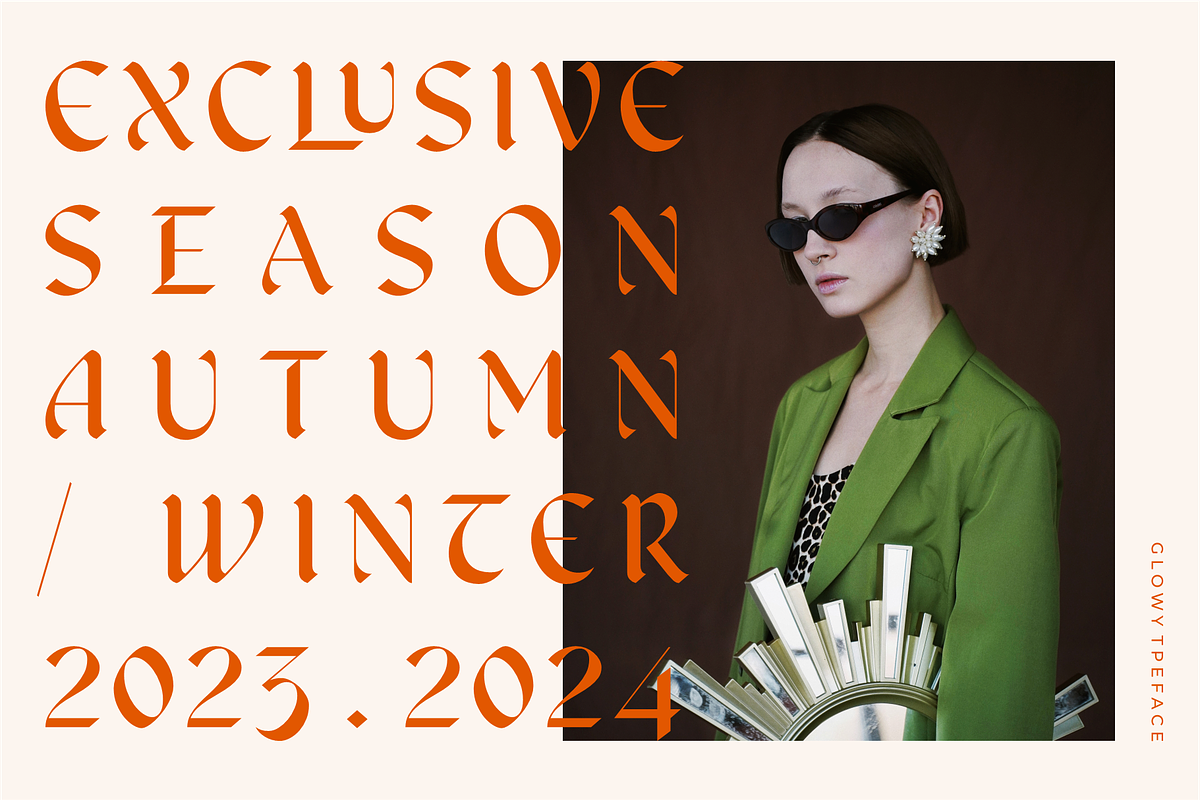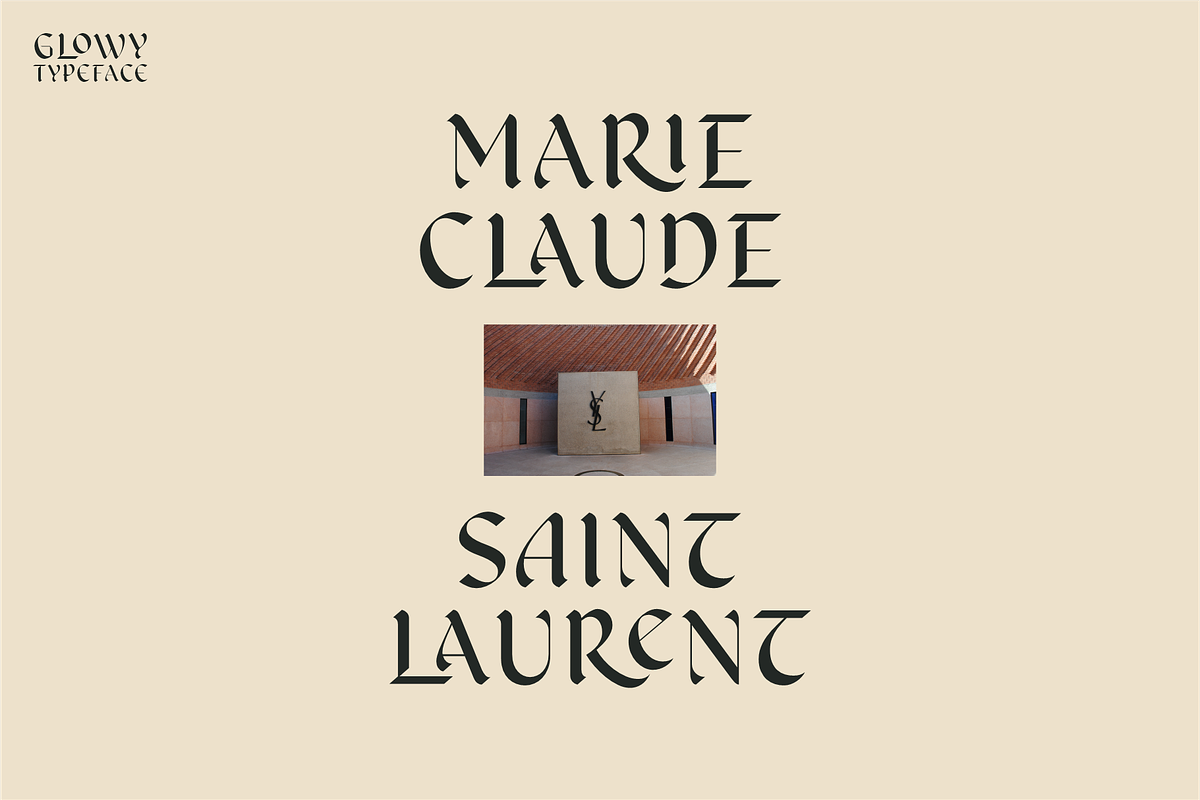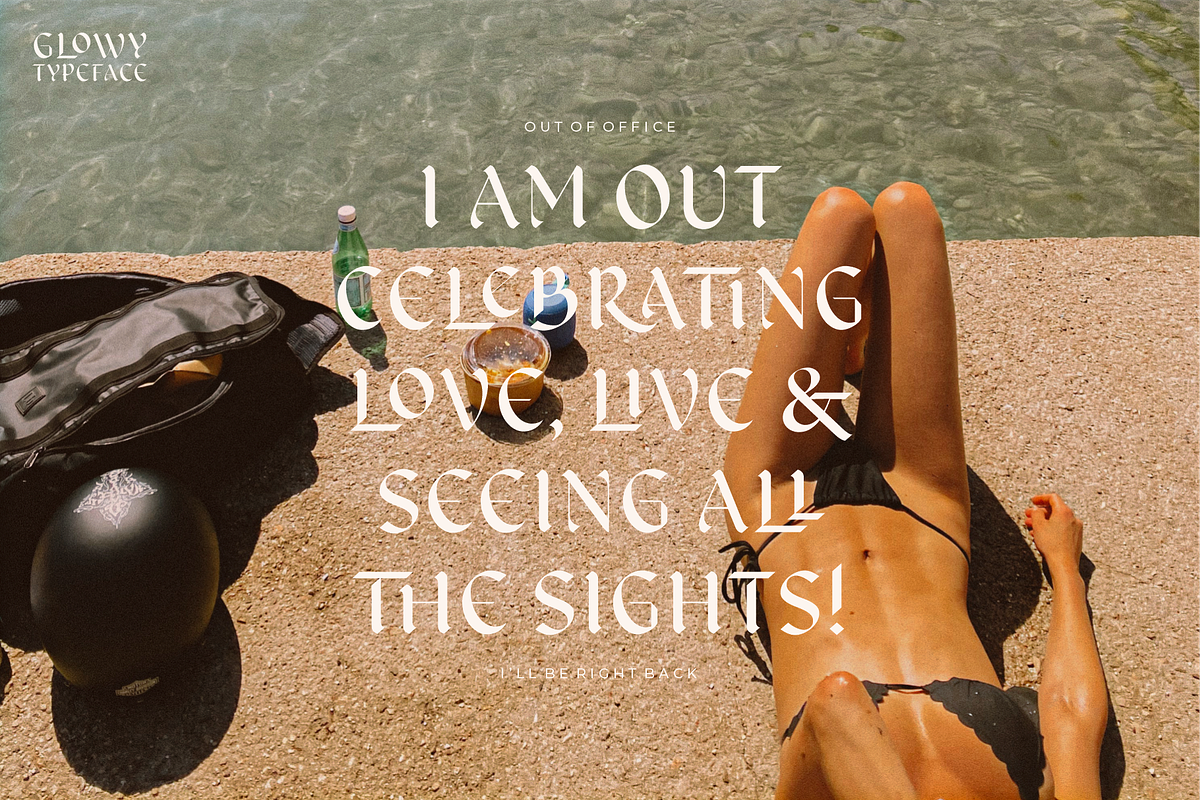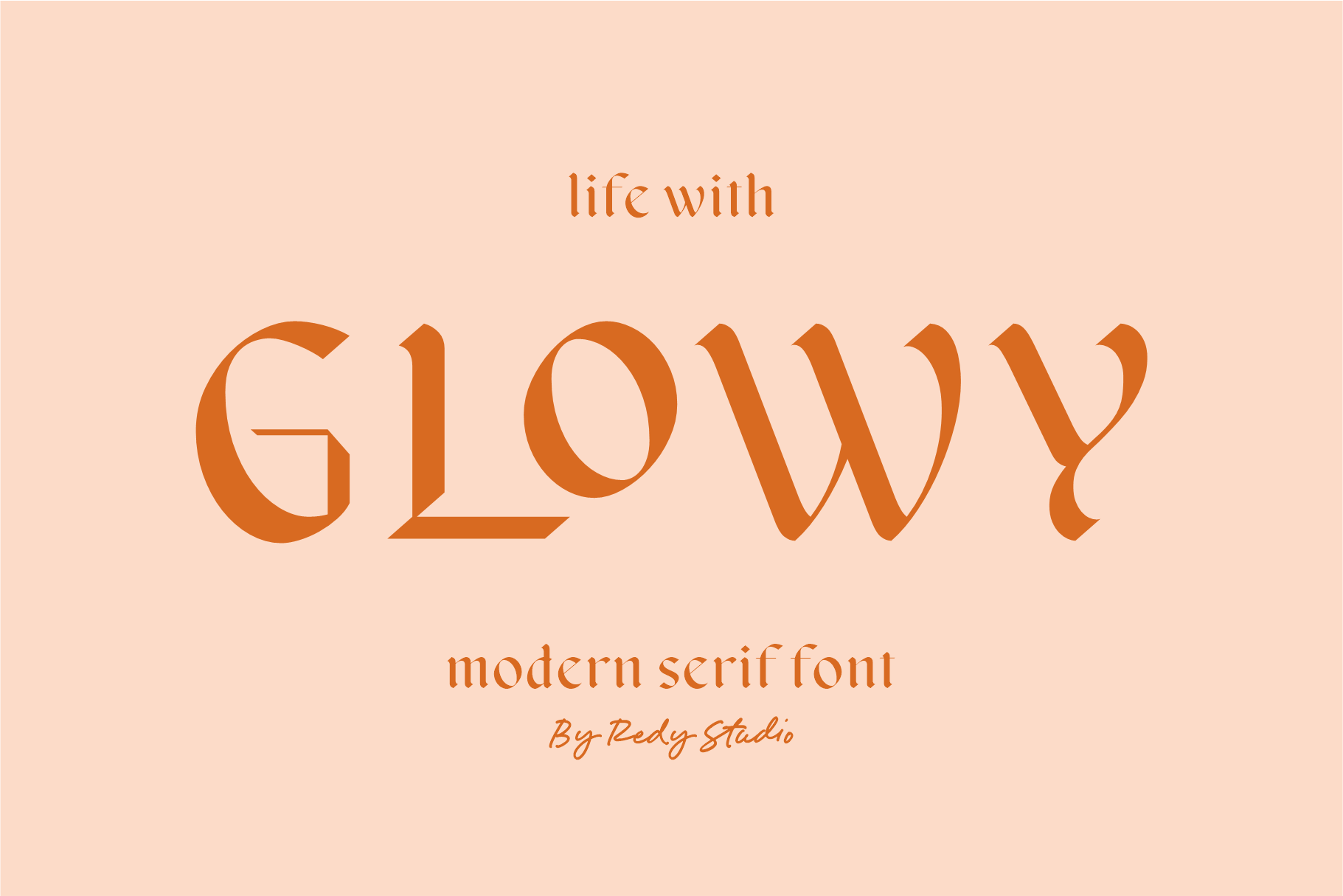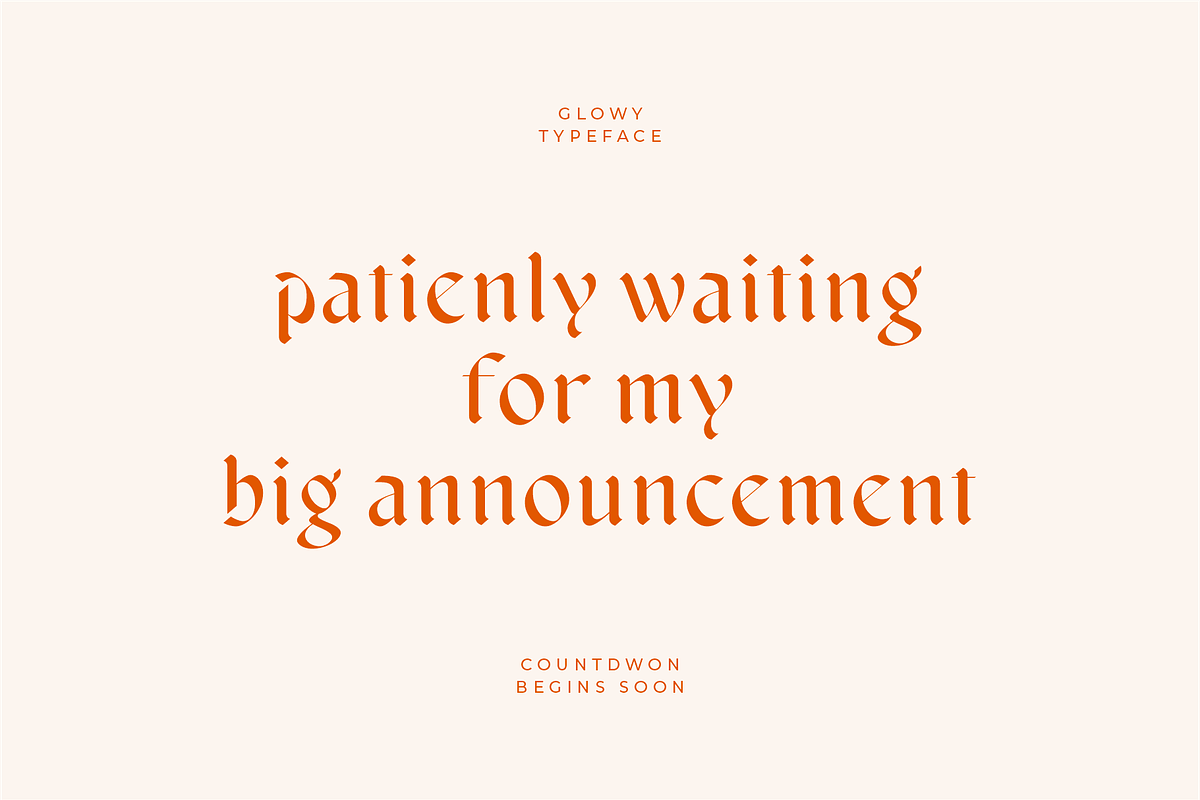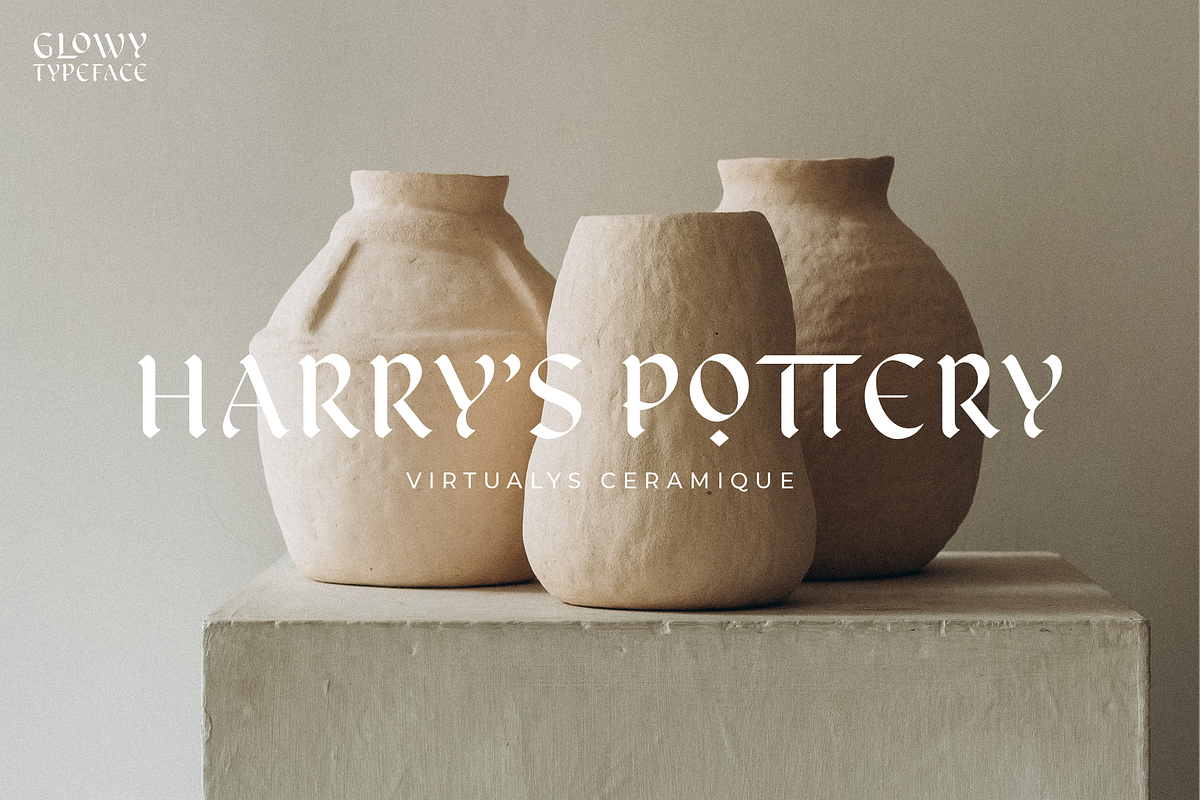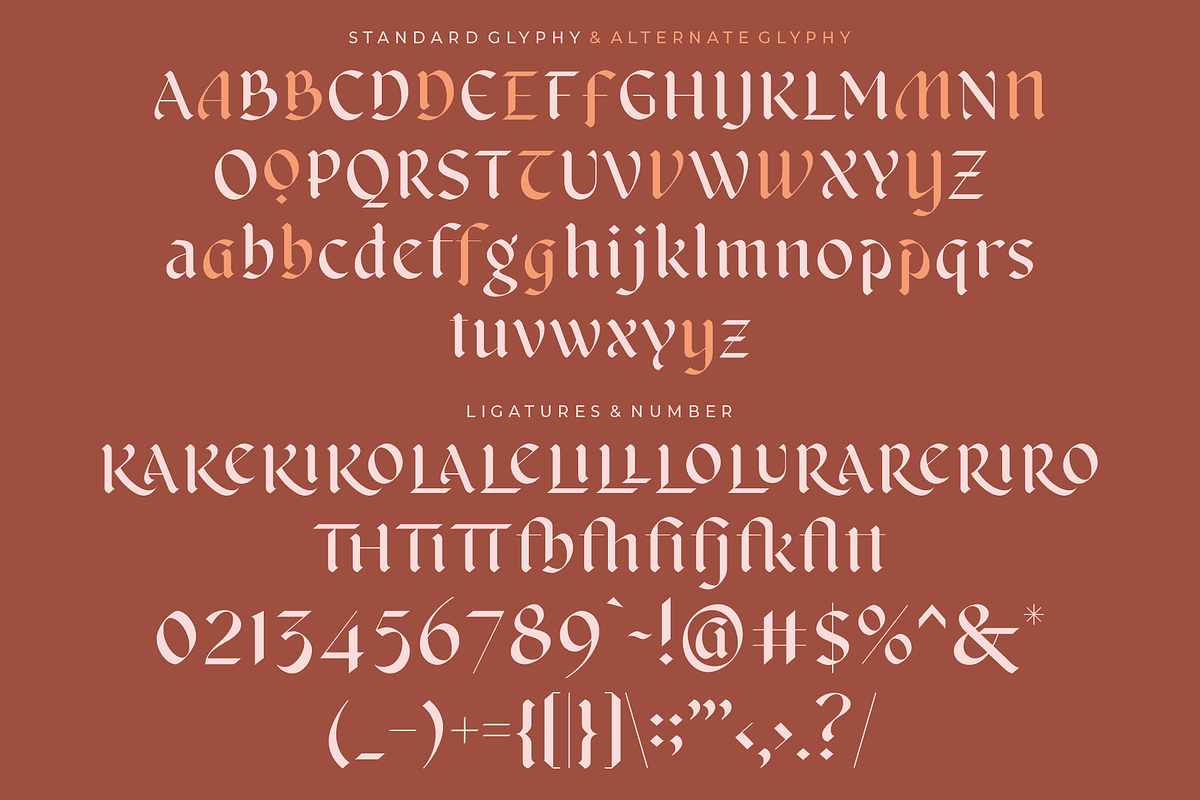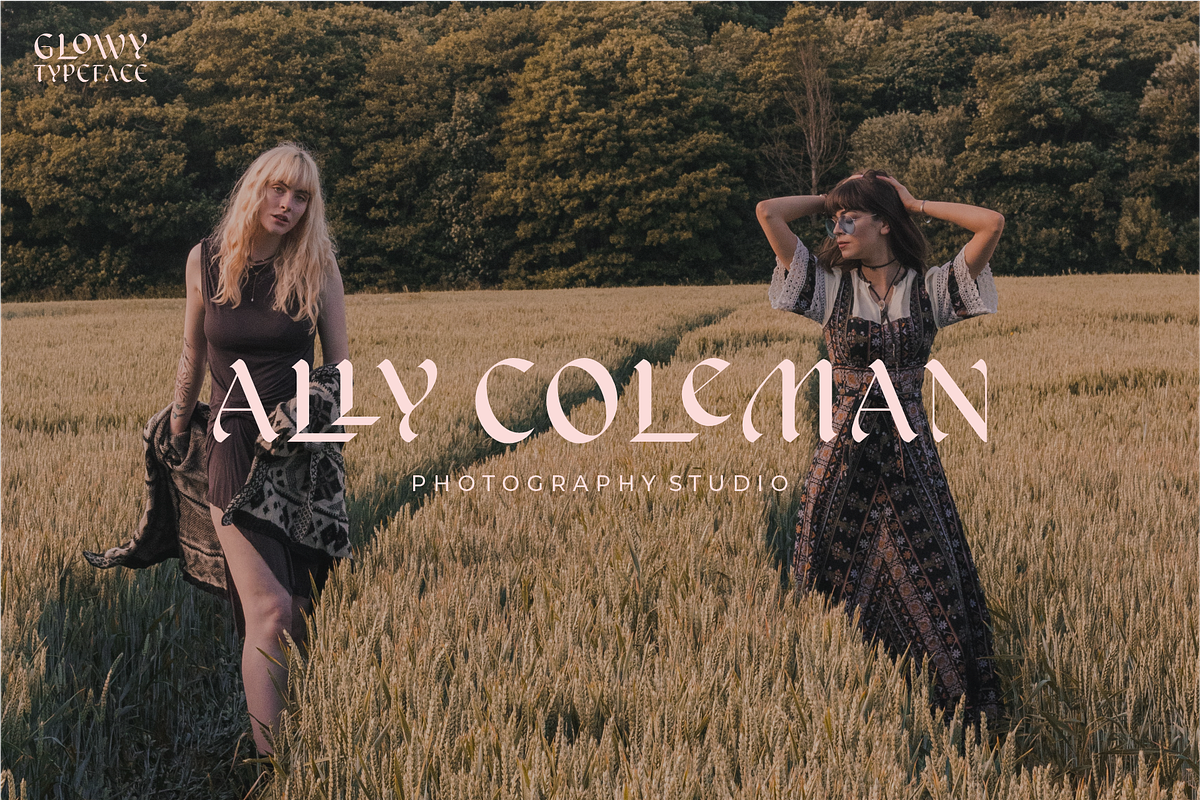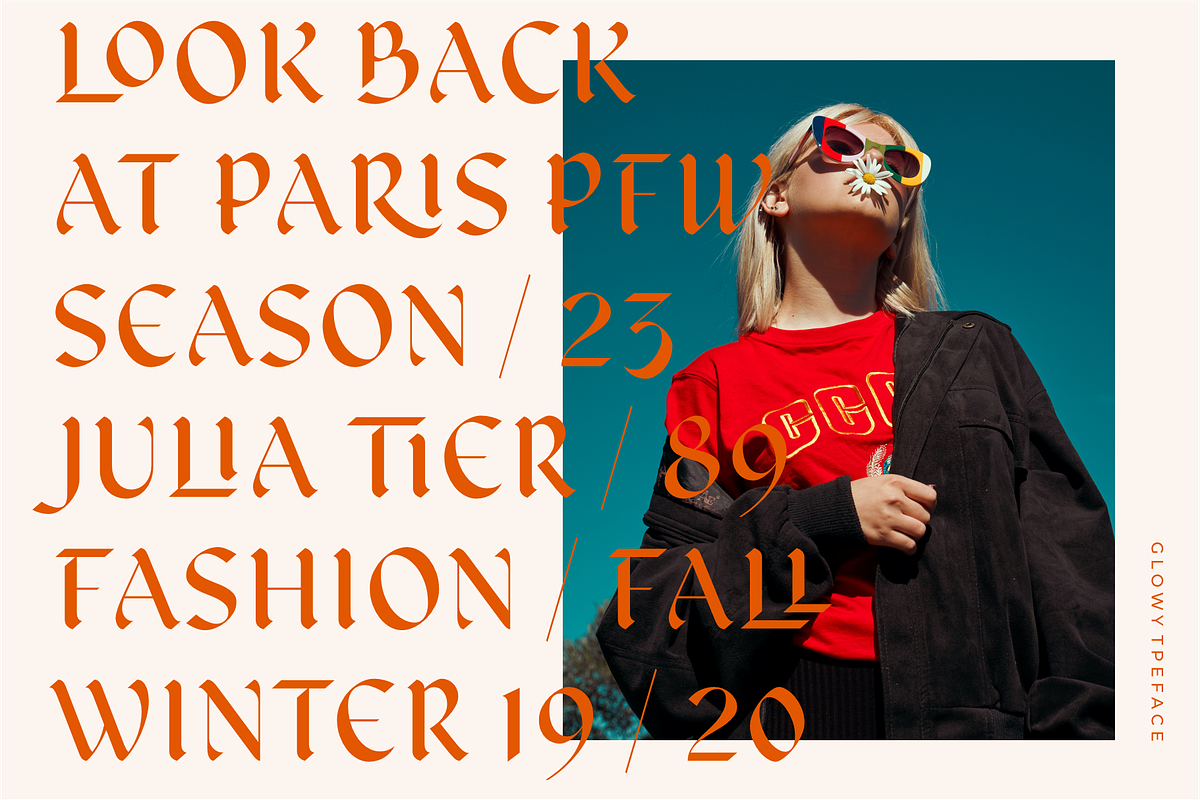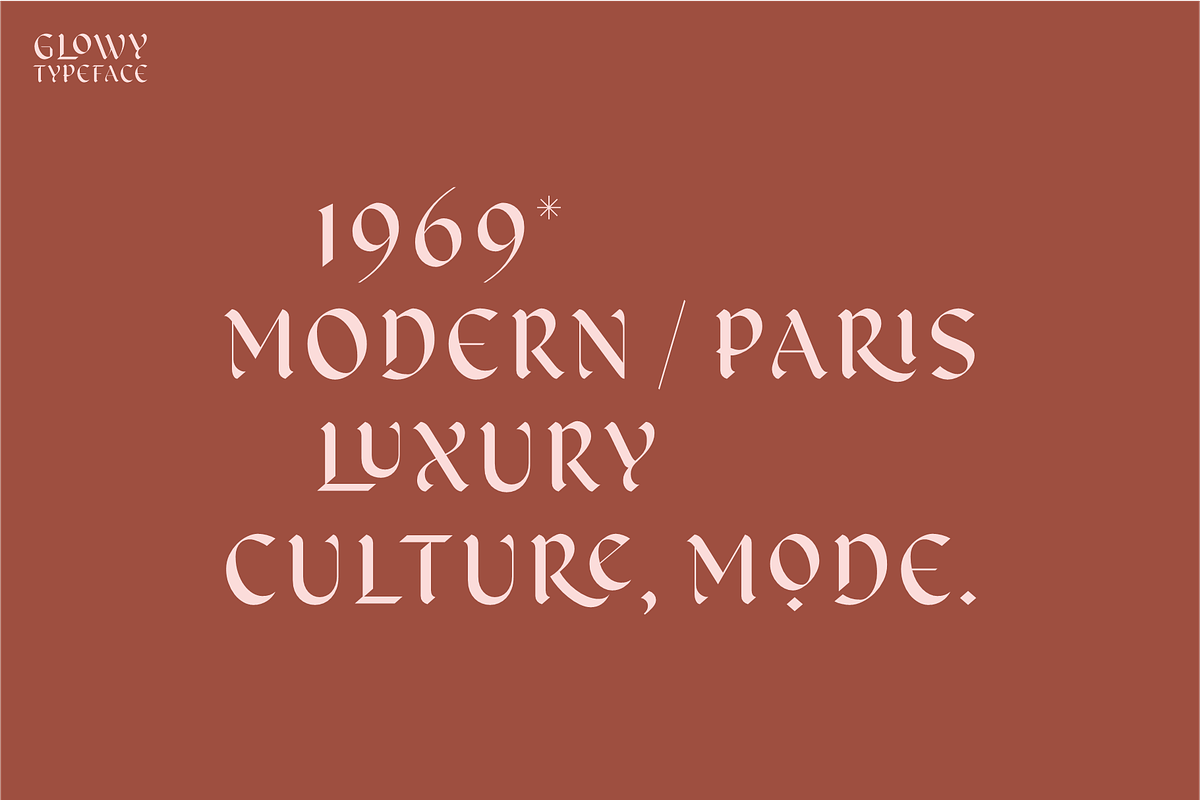
Glowy - Modern Serif Font
Glowy modern serif font is an exceptional font choice. This font effortlessly blends contemporary aesthetics with a touch of elegance, resulting in a visually captivating and professional typeface. Glowy Modern Serif font unique attribute lies in its luminous and bold quality. The letters seem to emit a soft glow, which sets it apart from traditional serif fonts and adds a modern twist. Glowy modern serif font also includes ligatures and alternate character, it's easy to achieve custom typography for stunning logos, headlines, and quotes.